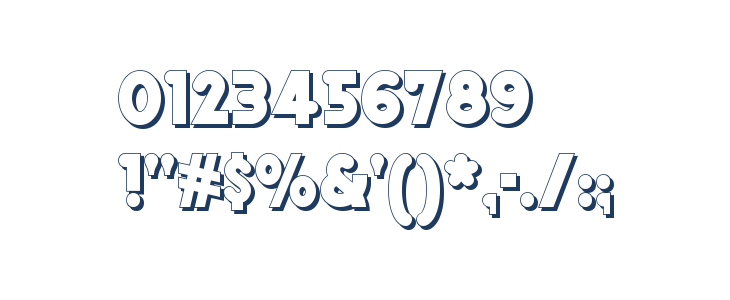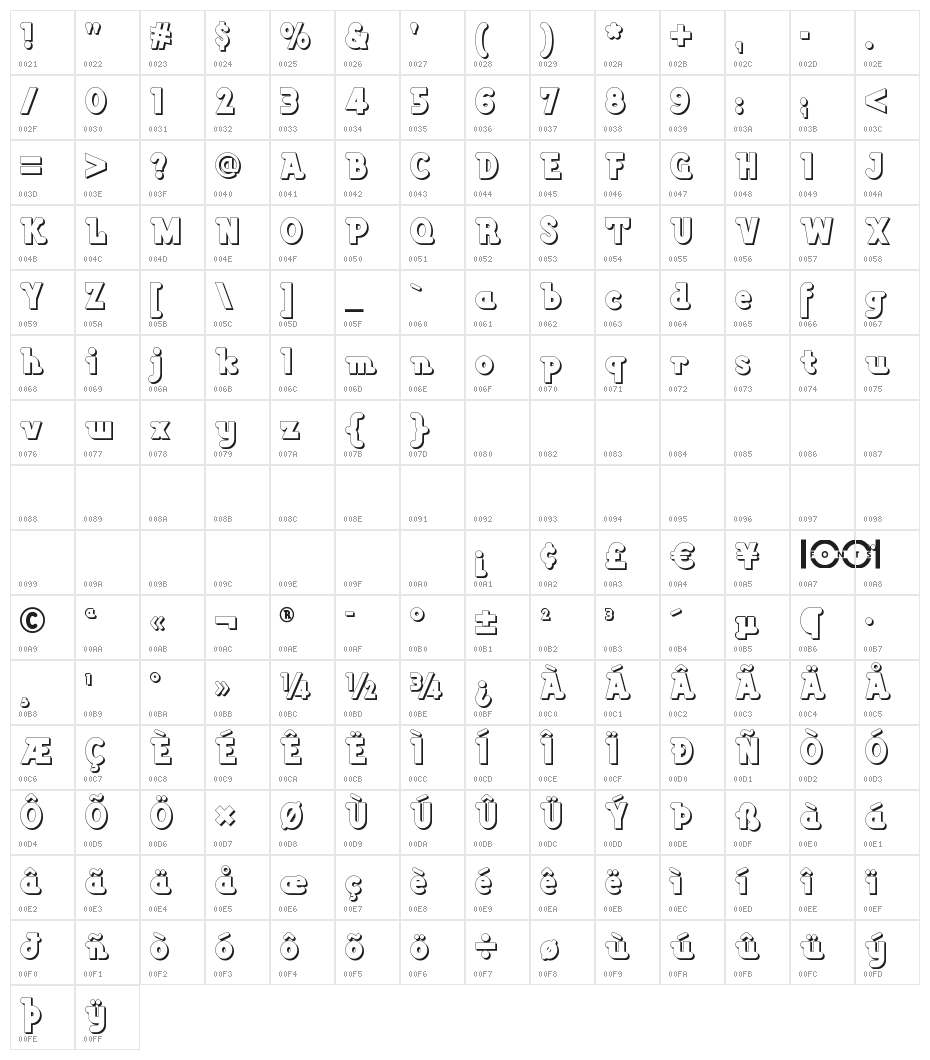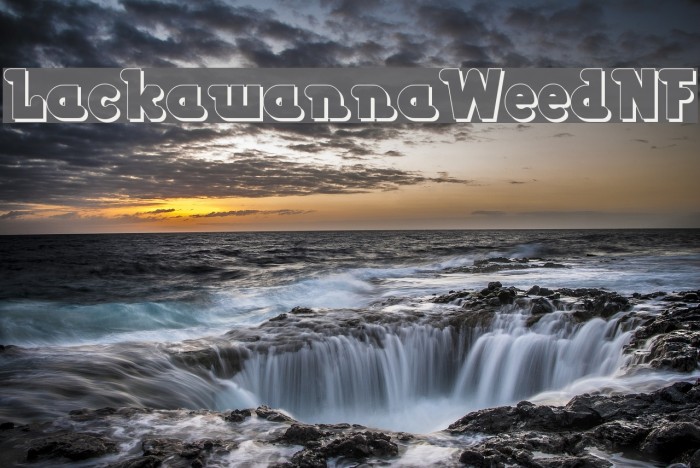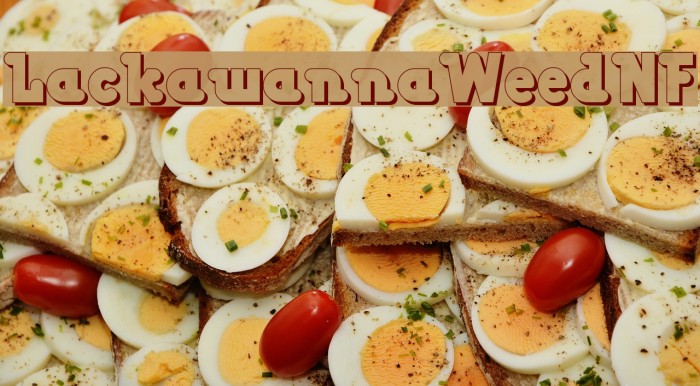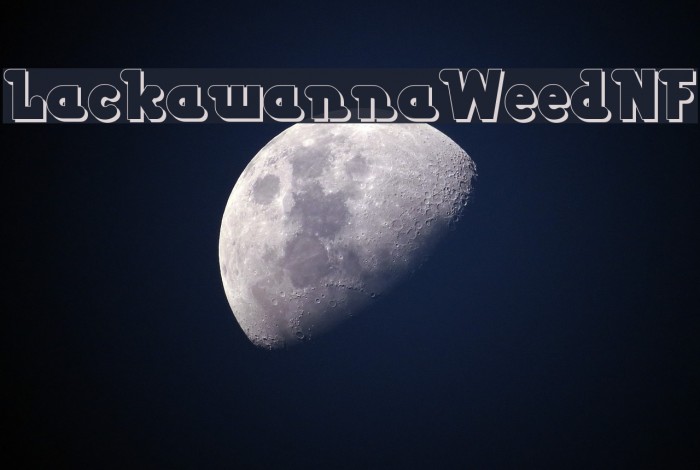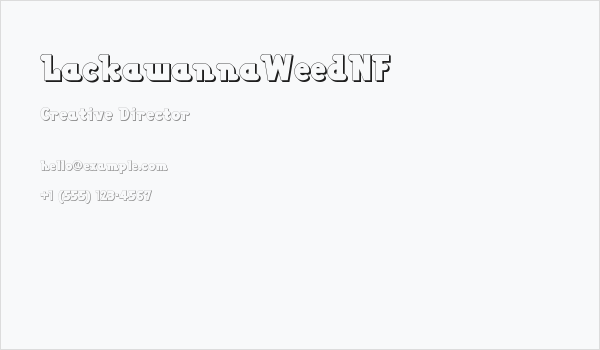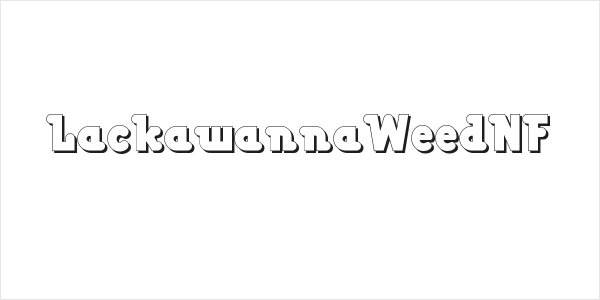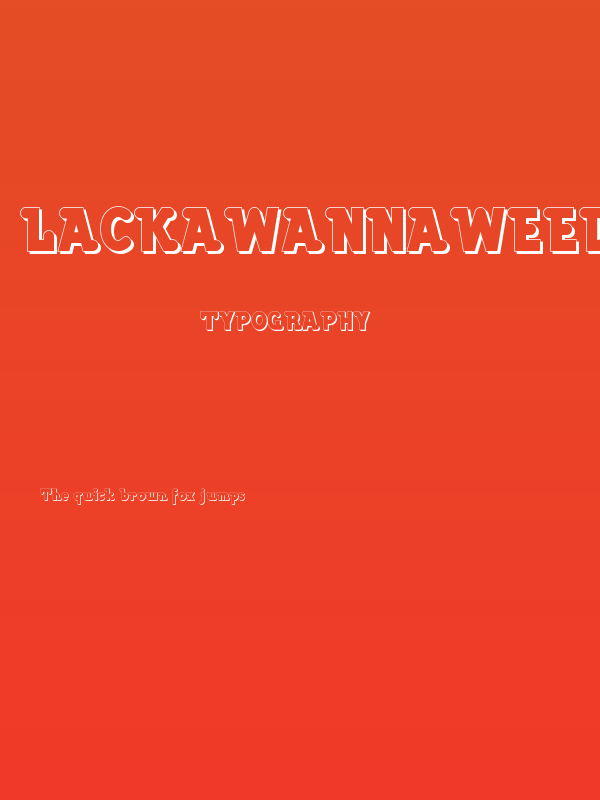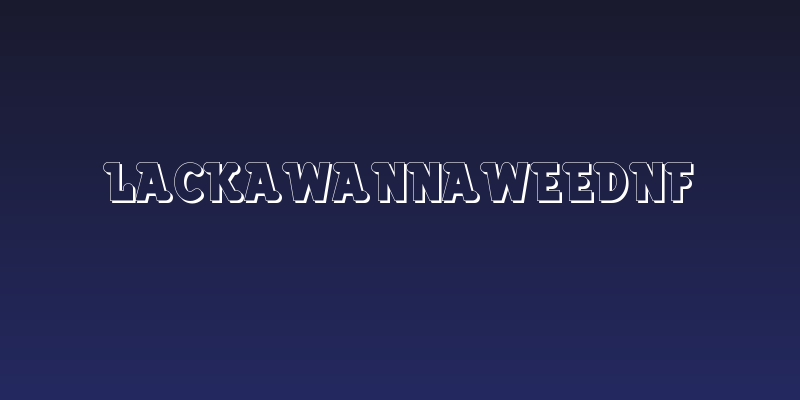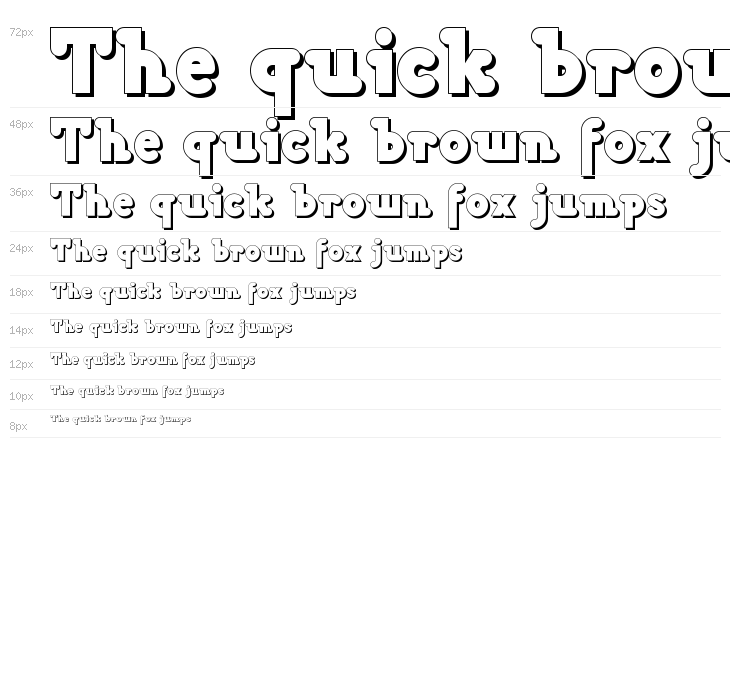
LackawannaWeedNF Font
LackawannaWeedNF Description
This font features a bold, playful design with a three-dimensional effect that gives it a unique and eye-catching appearance. The letters are thick and rounded, with a shadow that adds depth and dimension. The uppercase and lowercase characters maintain a consistent style, with the lowercase letters slightly more compact. Numbers and special characters follow the same bold and playful design, making the font versatile for various uses. The overall look is reminiscent of retro or vintage styles, yet it maintains a modern twist with its clean lines and structured form.
| Overall Style | Retro, Modern |
| Proposed Projects | Ideal for posters, logos, children's books, and any design project that requires a fun and engaging typeface. |